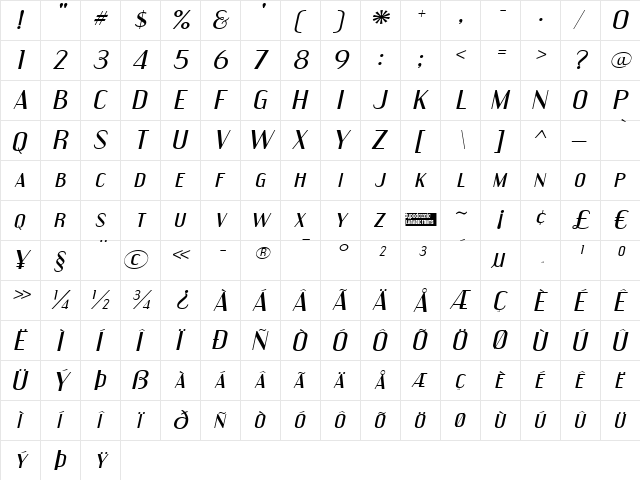
Engebrechtre Expanded Italic
Design Context for Engebrechtre Expanded Typeface
Engebrechtre Expanded takes a measured approach to typography — its balanced proportions and neutral character make it a reliable workhorse for both digital and print work. Its italic angle brings a sense of urgency and motion to the letterforms.
Pro Tip: Try Engebrechtre Expanded for annotation and caption copy alongside an upright companion — the contrast in angle creates a dynamic but ordered typographic system.